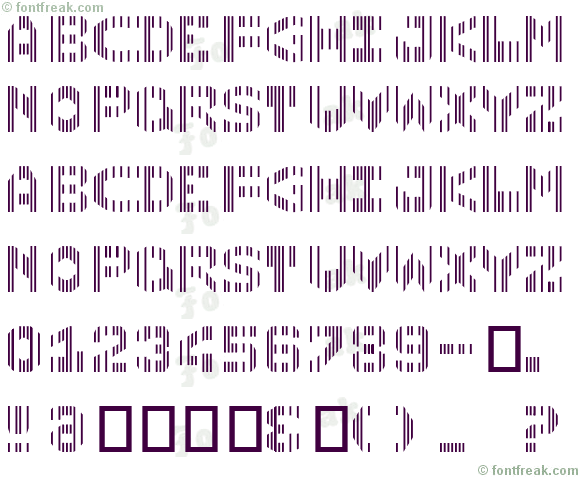
CMC7
About CMC7
The CMC7 font, created by Harold Lohner in 1998, is a distinctive display typeface that captures the essence of early magnetic ink character recognition systems. Released into the public domain, this font is available as freeware, making it accessible for a wide range of creative projects. The CMC7 font features a unique design characterized by its geometric forms and linear strokes, which create a modern yet retro aesthetic. The stroke weight is consistent, providing a clean and uniform appearance, while the spacing is deliberately tight, contributing to its striking visual impact. The font lacks decorative elements, emphasizing its straightforward, no-frills design that is both functional and visually appealing.
This versatile font is perfect for various applications. It works exceptionally well for technological branding or product labels that need to convey a sense of precision and efficiency. Additionally, the CMC7 font can enhance the design of event tickets, giving them a contemporary edge. Graphic designers can also utilize it in infographics or data presentations, where clarity is crucial. Small business owners looking to create unique promotional materials will find this font suitable for business cards and flyers, allowing them to stand out in competitive environments.
Targeting graphic designers, small business owners, and content creators alike, the CMC7 font offers a unique blend of nostalgia and modernity. Its functionality makes it a tool for those seeking to evoke a sense of reliability while maintaining a fresh look. The CMC7 font free download allows users to experiment with this unique typeface, making it an excellent addition to any designer's toolkit. Ultimately, its distinctive geometric style and practical applications make the CMC7 font a standout choice for various design projects, ensuring it remains relevant in today’s creative landscape.